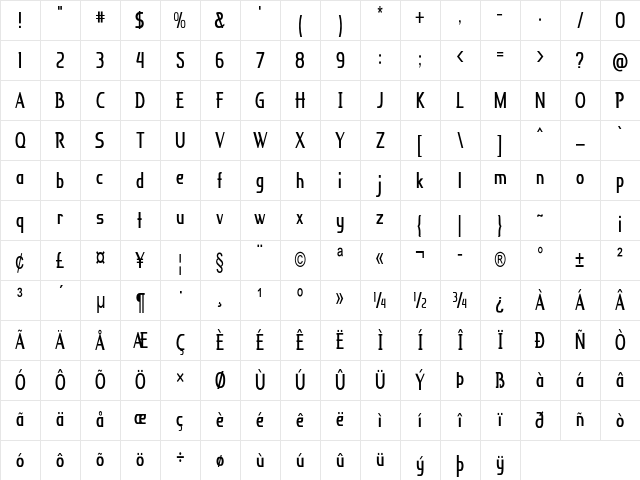
Knuckle Black Condensed Regular
Style: Condensed Regular
Knuckle Black Family
Knuckle Black Condensed Regular
Complete Knuckle Black Condensed Regular glyph index. Displaying only characters natively supported by Knuckle Black Condensed Regular font.
Design Context for Knuckle Black
Knuckle Black is a composed and adaptable typeface that performs quietly and consistently across a wide range of design contexts. Its narrow stance lets it pack a punch even in space-constrained designs.